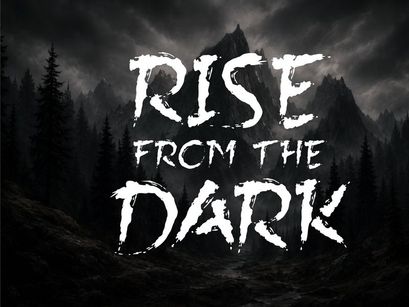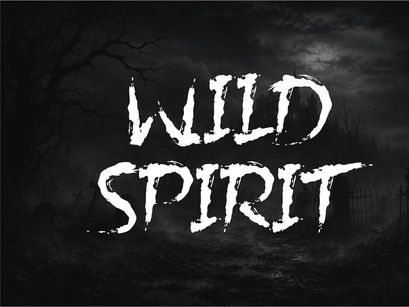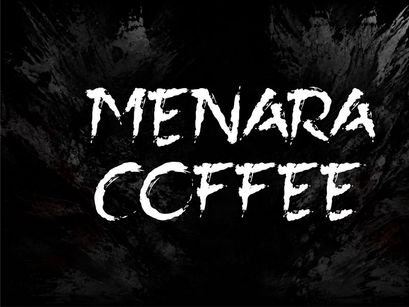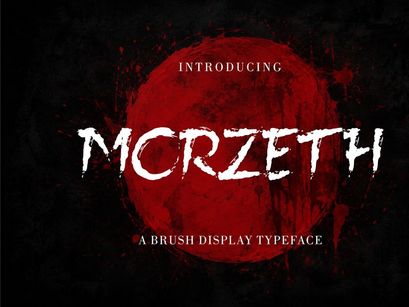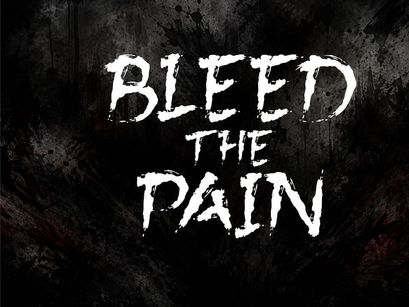
Morzeth – Horror Brush Display Font is a bold and expressive brush typeface designed to bring a raw, dark, and unsettling atmosphere to your designs. Its rough strokes, irregular edges, and distressed details create an intense handmade appearance that works perfectly for horror and dark-themed projects.
Morzeth is ideal for horror movie titles, thriller posters, Halloween graphics, dark merchandise, album artwork, gaming projects, book covers, logos, social media artwork, and edgy branding. Its aggressive brush character makes every word stand out with a powerful and mysterious visual impact.
With its gritty and dramatic personality, Morzeth is a great choice for designers looking to create artwork that feels disturbing, rebellious, raw, cinematic, and unforgettable.